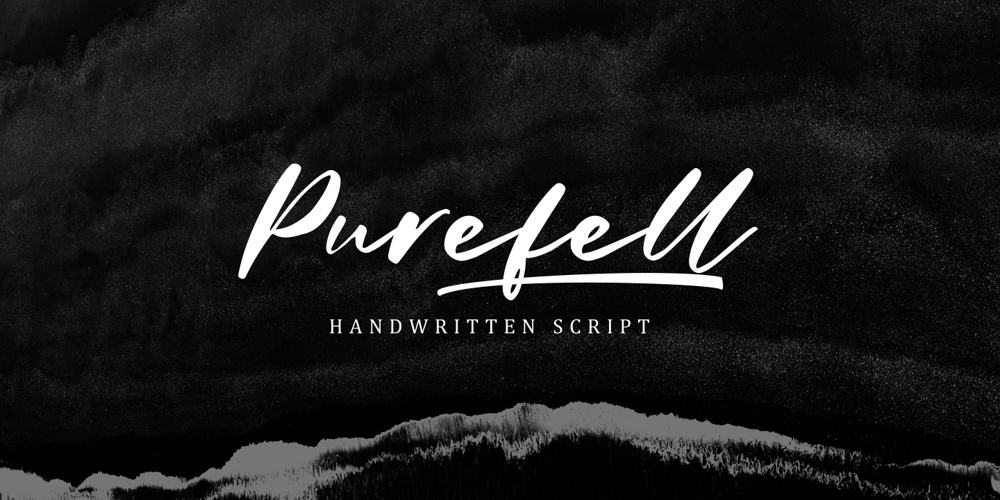
Purefell Script Font Family was designed by Hendry Juanda and published by Letterhend. Purefell Script contains 1 styles and family package options. Purefell Script is a natural handwritten made script which is suitable for anyone who needs a typeface for headlines, logotype, apparel, invitations, branding, packaging, advertising and more. This typeface is comes with uppercase, lowercase, punctuation, symbols, numerals, stylistic set alternate, ligatures, as well as multi-lingual support and PUA encoding.We hope you enjoy the font, please feel free to comment if you have any thoughts or feedback. Or simply send me a PM or email me at letterhend@gmail.com Thanks for purchasing and have fun!